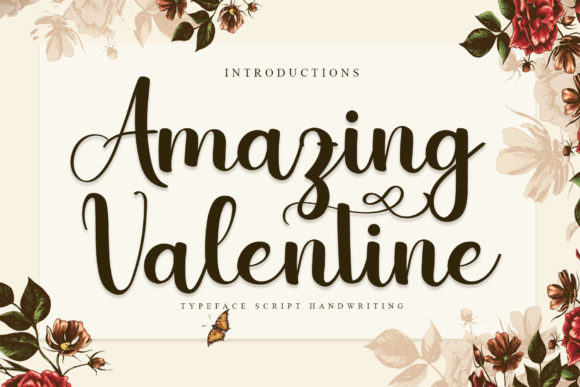
The Ultimate Valentine’s Day Font: Amazing Valentine
Ah, Valentine’s Day – a time for love, chocolates, and beautiful designs. I still remember the year I was tasked with creating a romantic dinner invitation for a client’s anniversary party. As I scrolled through font after font, nothing seemed quite right. That was until I stumbled upon Amazing Valentine, a romantic and sweet calligraphy typeface that stole my heart. In this article, I’ll share my love for this stunning font, its features, and how to make the most of it in your designs.
What Makes Amazing Valentine So Amazing?
Amazing Valentine is a luxurious calligraphy font that adds a spark to any design project. Its characters dance along the baseline, creating a beautiful, flowing effect that’s perfect for Valentine’s Day, weddings, or any romantic occasion. But what really sets it apart is its PUA encoding, making it easy to access all the amazing glyphs and ligatures.
- ✨ Elegant and luxurious feel
- ✅ PUA encoded for easy access to glyphs and ligatures
- 💕 Perfect for romantic occasions like Valentine’s Day and weddings
- 🎨 Highly versatile and can be used in various design projects
⚠️ While Amazing Valentine is an incredible font, it’s worth noting that it may not be the best choice for very formal or traditional designs. Its luxurious feel is perfect for romantic occasions, but may not suit more conservative projects.
🤔 Additionally, some users may find that the font’s dancing characters can be a bit tricky to work with, especially for beginners.
The Story Behind Amazing Valentine
Amazing Valentine was designed with love and care by a talented type designer who’s passionate about creating beautiful and unique fonts. The designer’s inspiration came from traditional calligraphy and the romance of Valentine’s Day. With its luxurious feel and elegant characters, Amazing Valentine is sure to make your designs stand out.
Q: Is Amazing Valentine suitable for beginners?
A: While Amazing Valentine is an incredible font, it may require some practice to get used to its unique features, such as the dancing characters.